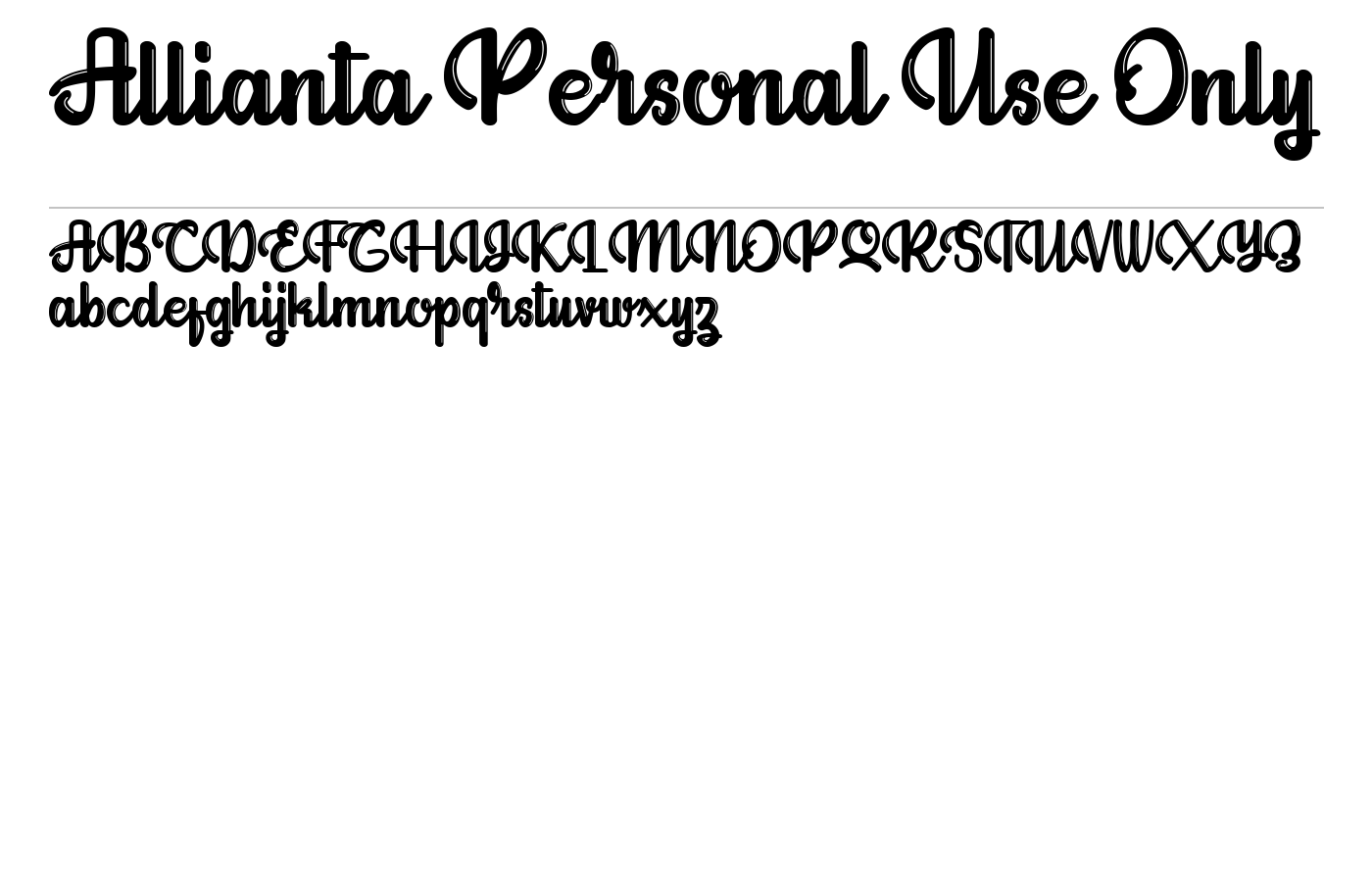
Allianta Personal Use Only is a bold and playful script font with a strong retro vibe, characterized by its rounded, connected letterforms and smooth, thick strokes. Its double-story lowercase letters and lively, looping details give it a friendly, approachable personality, making it ideal for creative branding, headlines, and eye-catching logos. This font works best in designs that seek a vintage yet modern charm with a touch of elegance and fun.
Allianta Personal Use Only Font
About Allianta Personal Use Only Font